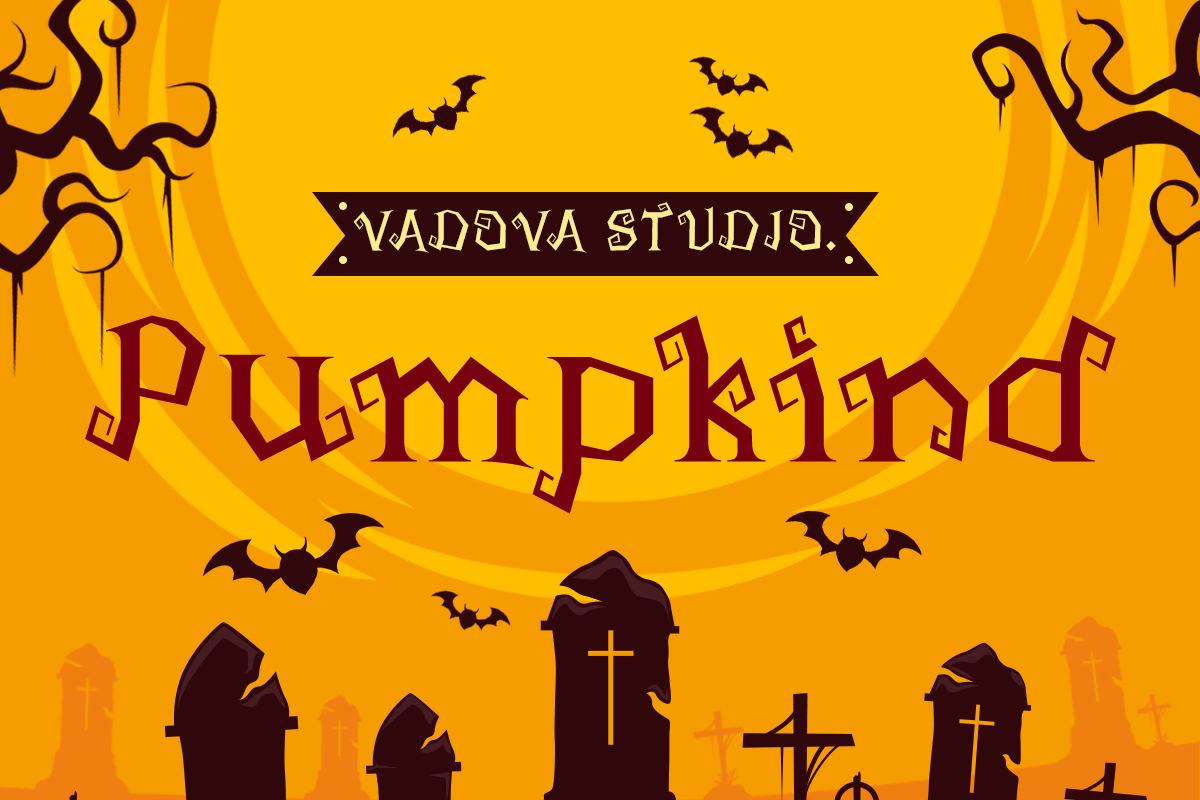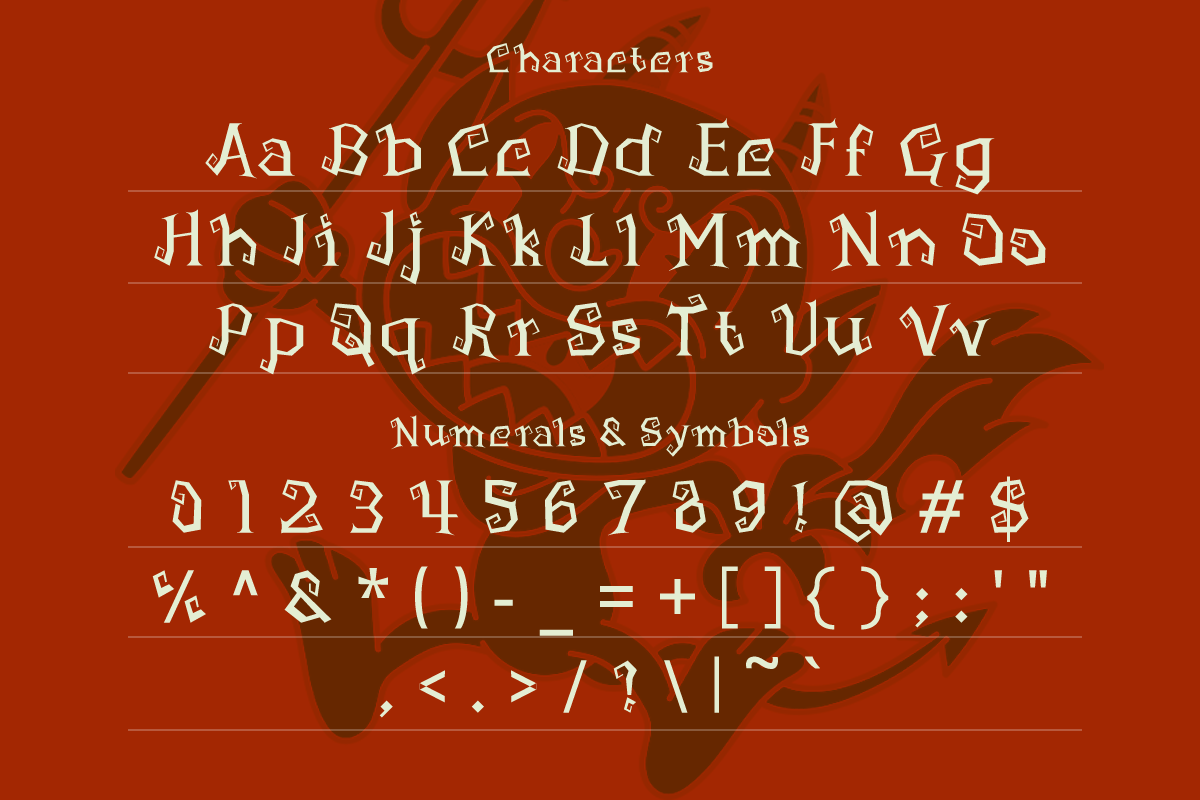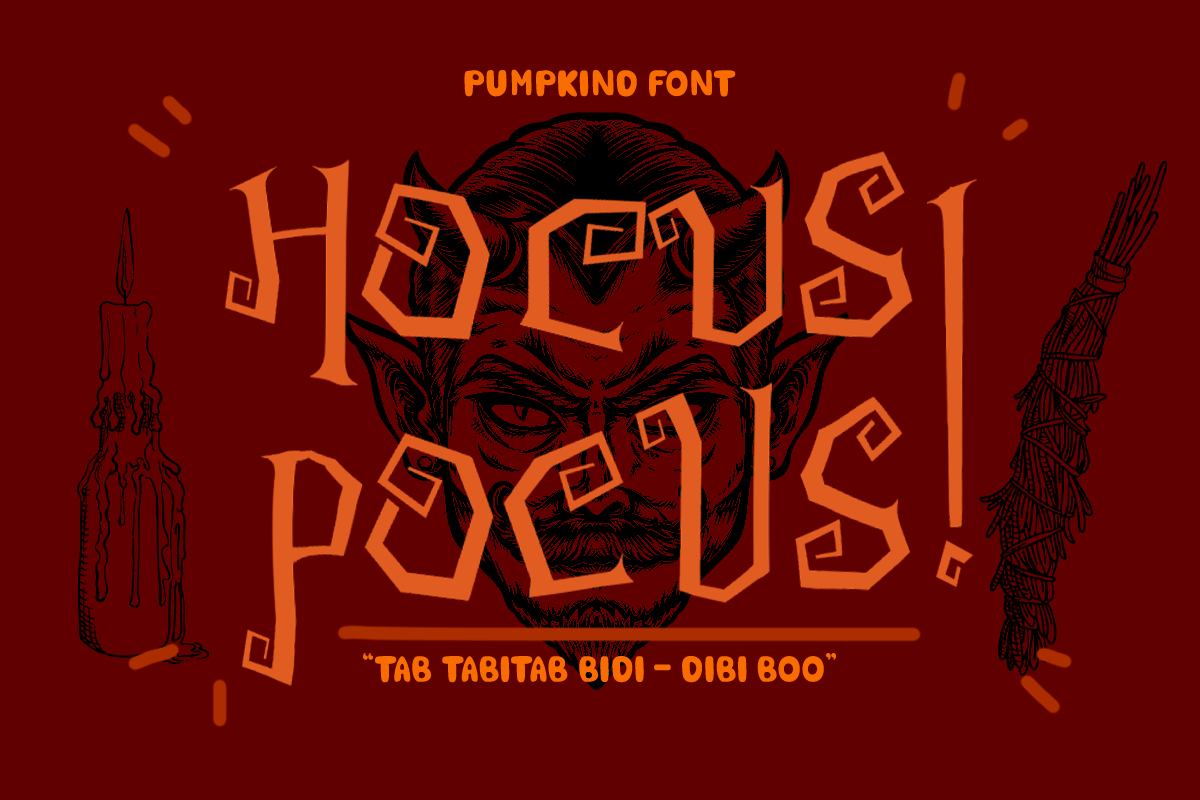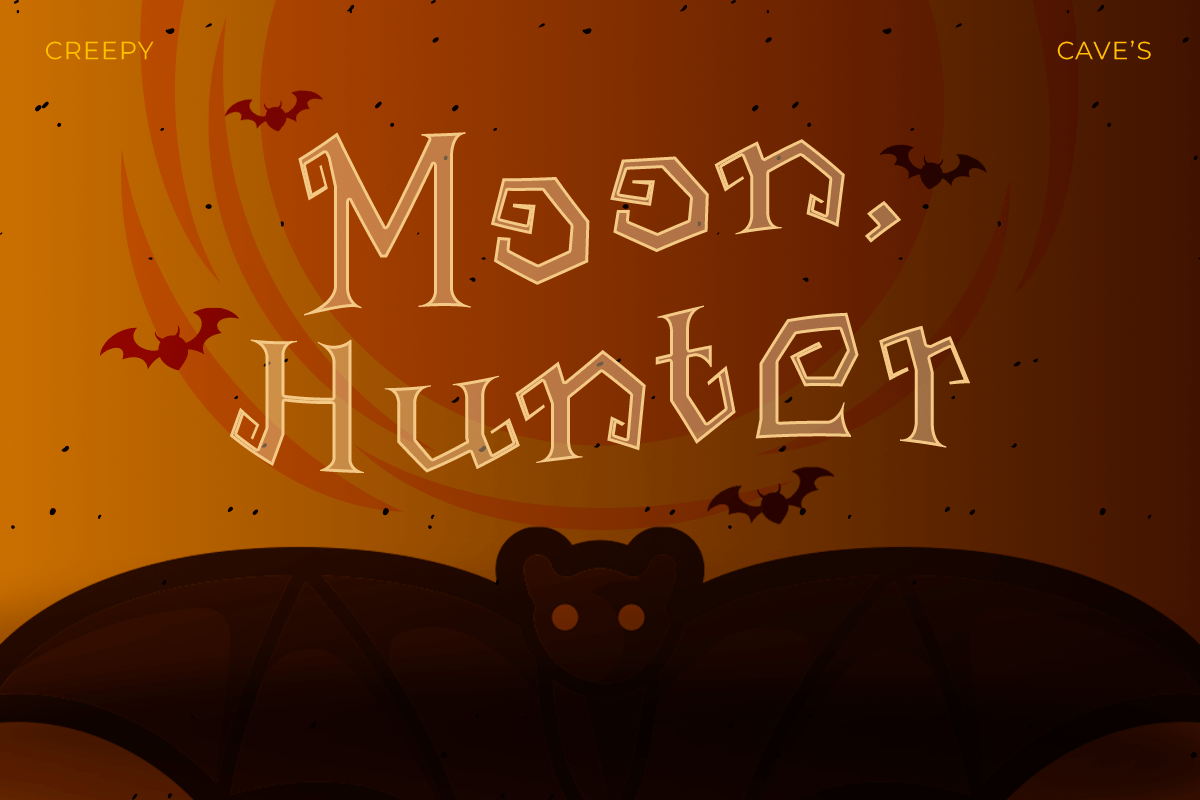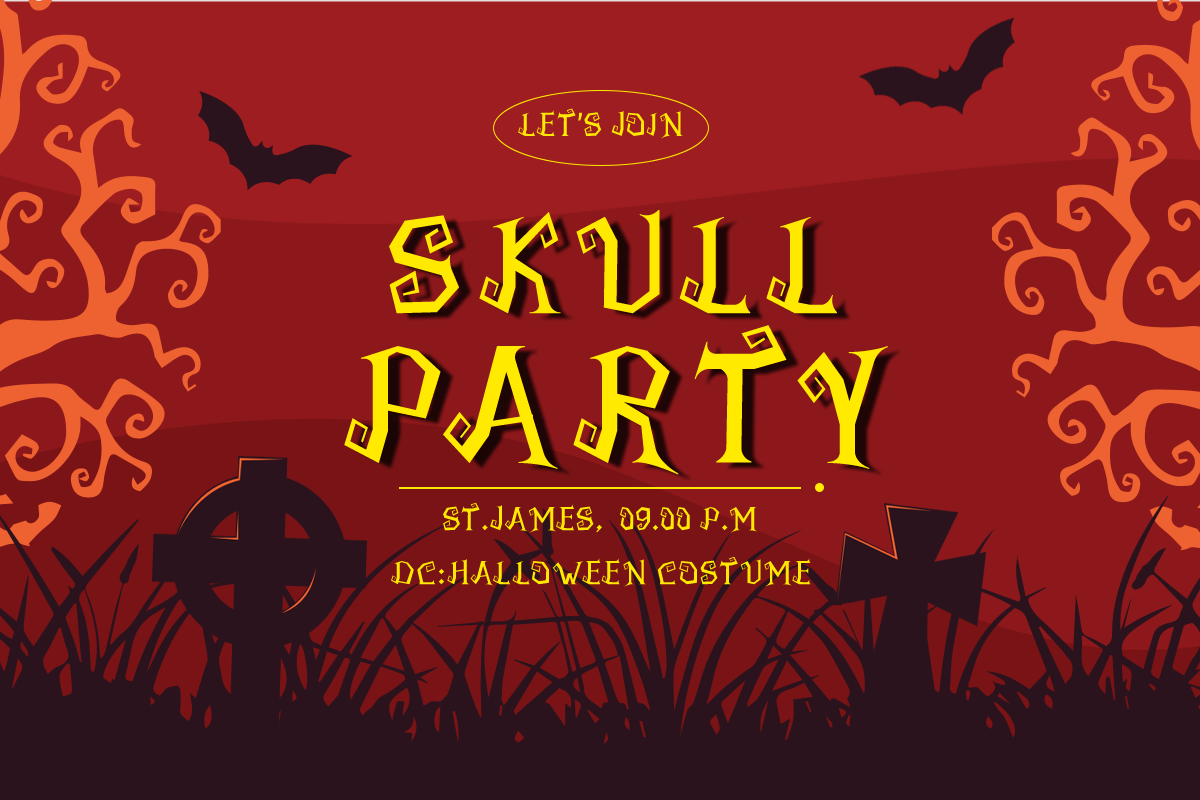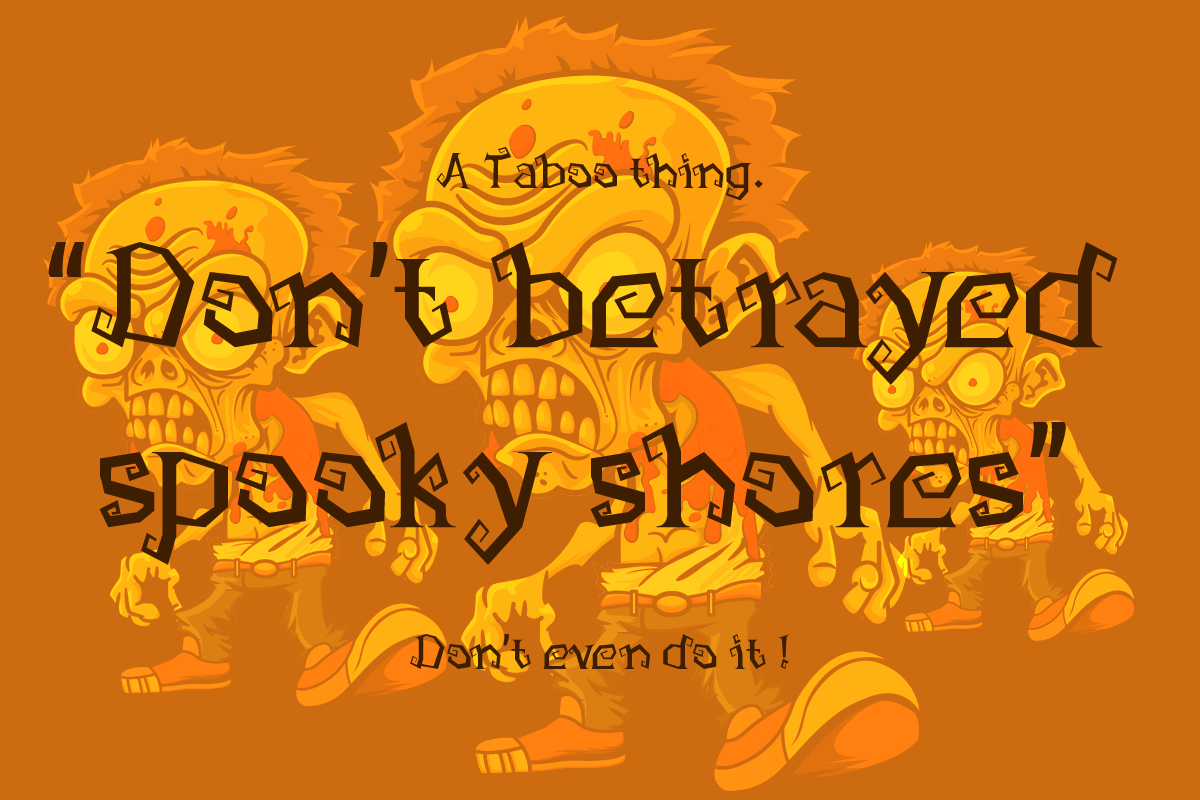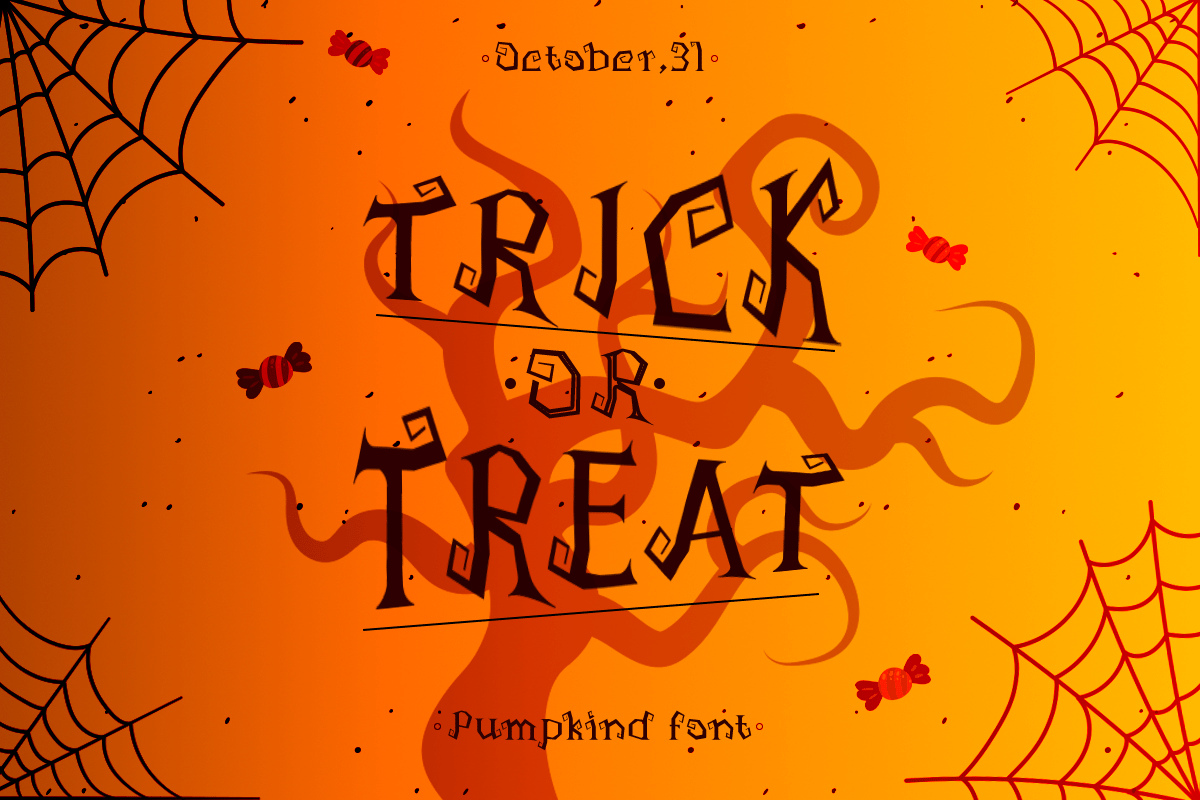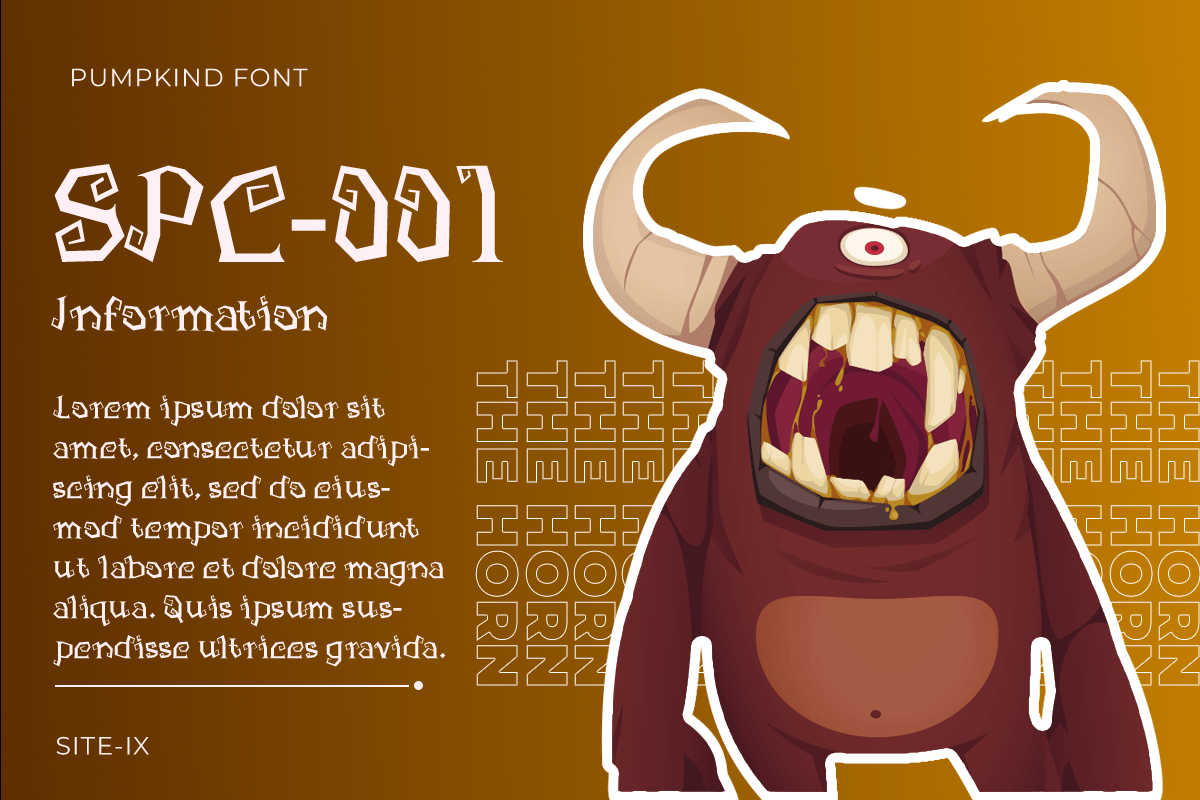
Pumpkind Font
Pumpkind is a spooky and playful display font with jagged, irregular letterforms, making it ideal for Halloween-themed designs, horror posters, eerie invitations, and spooky branding. Its crooked and whimsical strokes evoke a haunted, gothic atmosphere, perfect for trick-or-treat packaging, horror movie titles, and seasonal merchandise.
- Uppercase & Lowercase characters
- Numeral & Punctuations